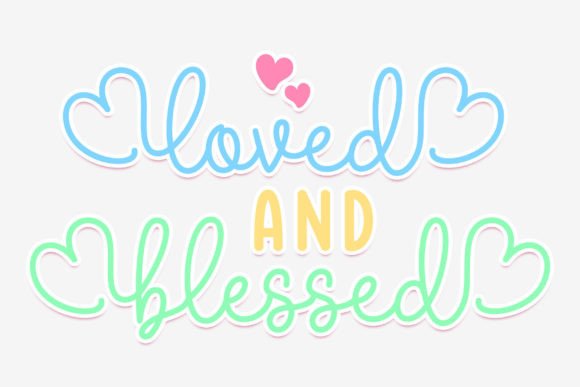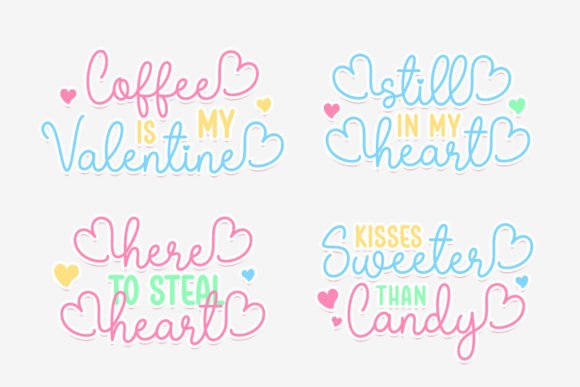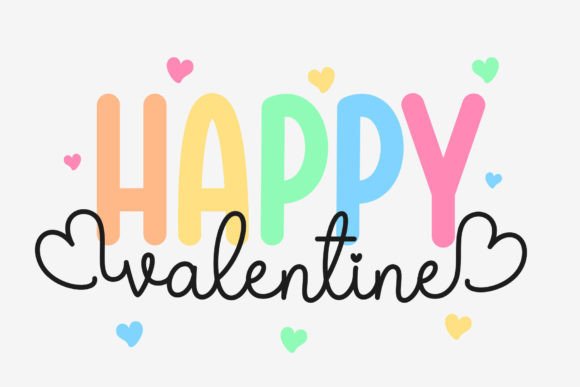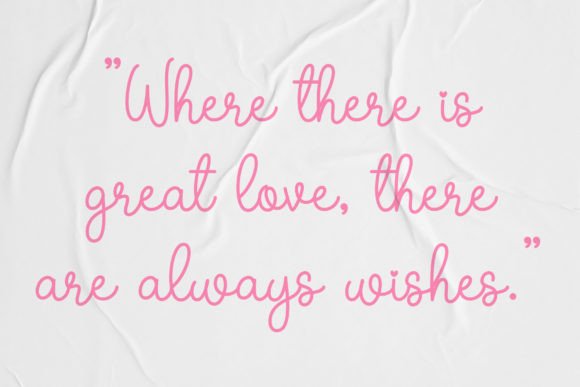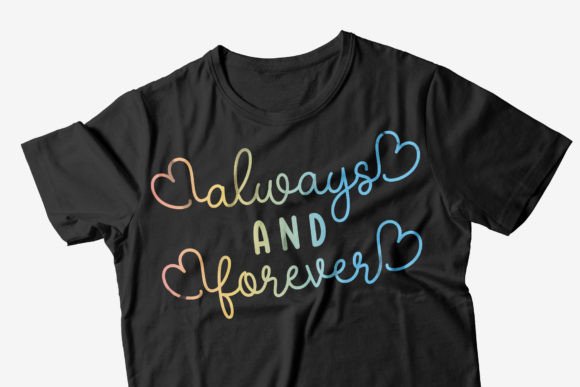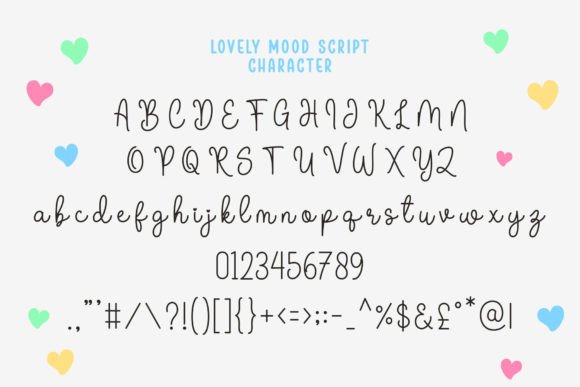
Introduction to Lovely Mood Duo Font
Lovely Mood is a lovely and cute font duo with two styles – script monoline and sans display.
This font is inspired by Valentine’s day, which makes it suitable for this holiday, as well as other designs that require a romantic touch Lovely Mood is PUA encoded which means you can access all of the glyphs and swashes with ease.
Key Features of Lovely Mood Duo Font